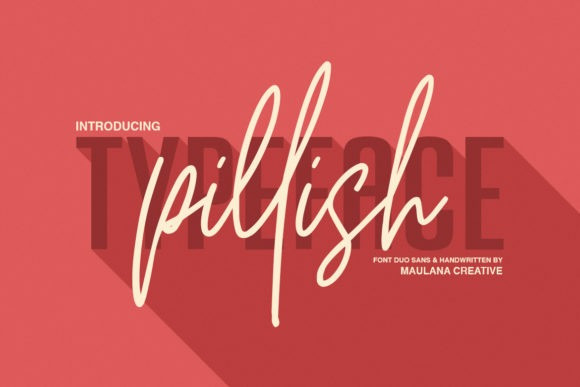
Pillish Handwritten Font
Pillish is a gorgeous font duo that brings together a fun sans and a pretty script font. This match made in heaven will take any design idea to the next level.